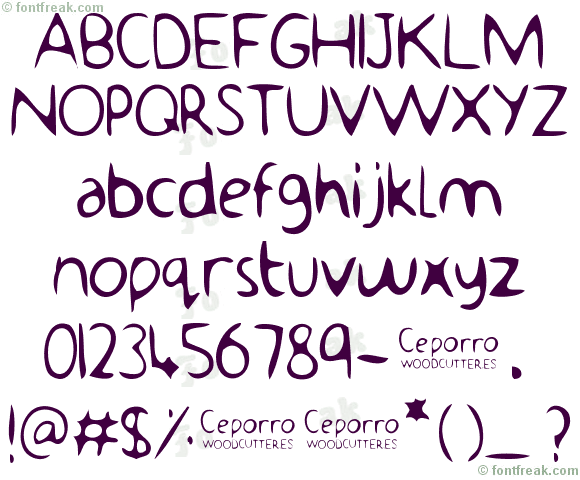
Ceporro
Ceporro is a unique typeface designed by woodcutter Manero, categorized as a decorative font that captures attention with its playful and artistic flair. The font features a distinct handwritten style, characterized by its irregular stroke weights and dynamic contrasts that bring a sense of movement and personality to text. The spacing is thoughtfully designed, allowing for legibility while enhancing the overall artistic appeal. Decorative elements, such as whimsical flourishes and varying line thicknesses, make Ceporro stand out in various applications.
This font is particularly well-suited for creative projects like wedding invitations, where its whimsical nature can create an inviting atmosphere. It also shines in designing movie posters, giving them an artistic edge that captures the viewer's attention. Restaurant menus can benefit from Ceporro's unique character, adding a touch of charm and personality that enhances the dining experience. Additionally, it works well for branding purposes, especially for small business owners looking to establish a memorable identity. Content creators will find this font ideal for social media graphics, where eye-catching visuals are essential for engagement.
What truly sets the Ceporro font apart is its ability to convey a sense of creativity and warmth, making it a versatile choice for numerous applications. Its artistic flair and free download option invite users to experiment and infuse their projects with originality, ensuring that any text created with Ceporro leaves a lasting impression.